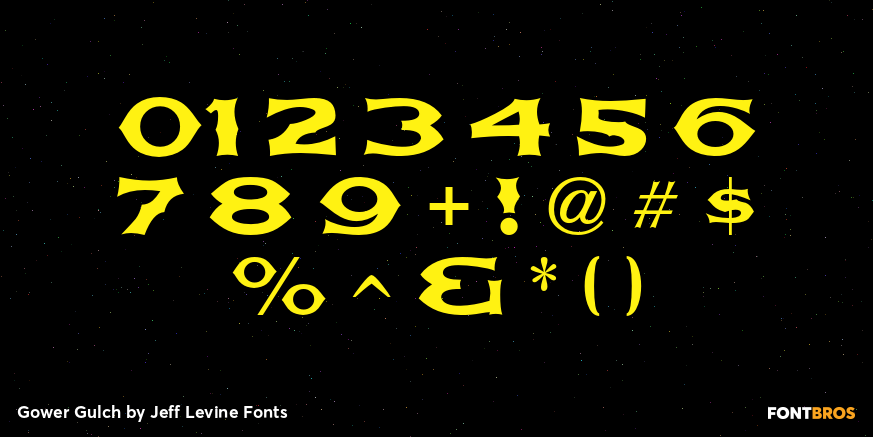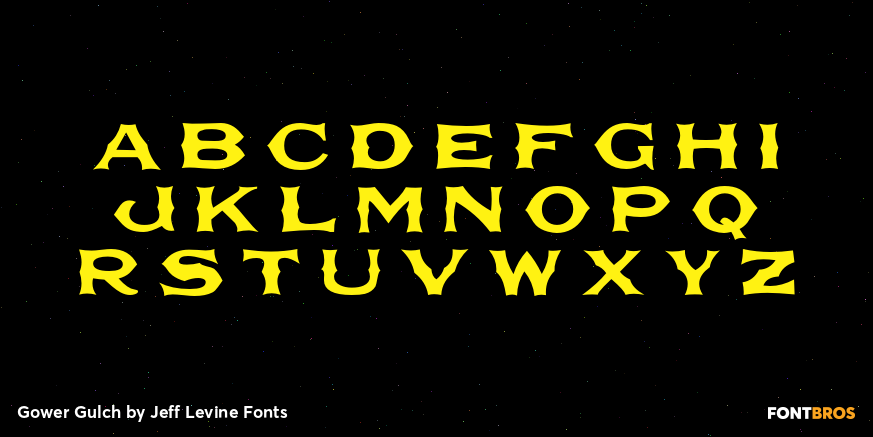
Gower Gulch
Gower Gulch JNL was inspired by some antique gold shirt pins spotted on an internet auction.
Gower Gulch JNL Regular by Jeff Levine Fonts